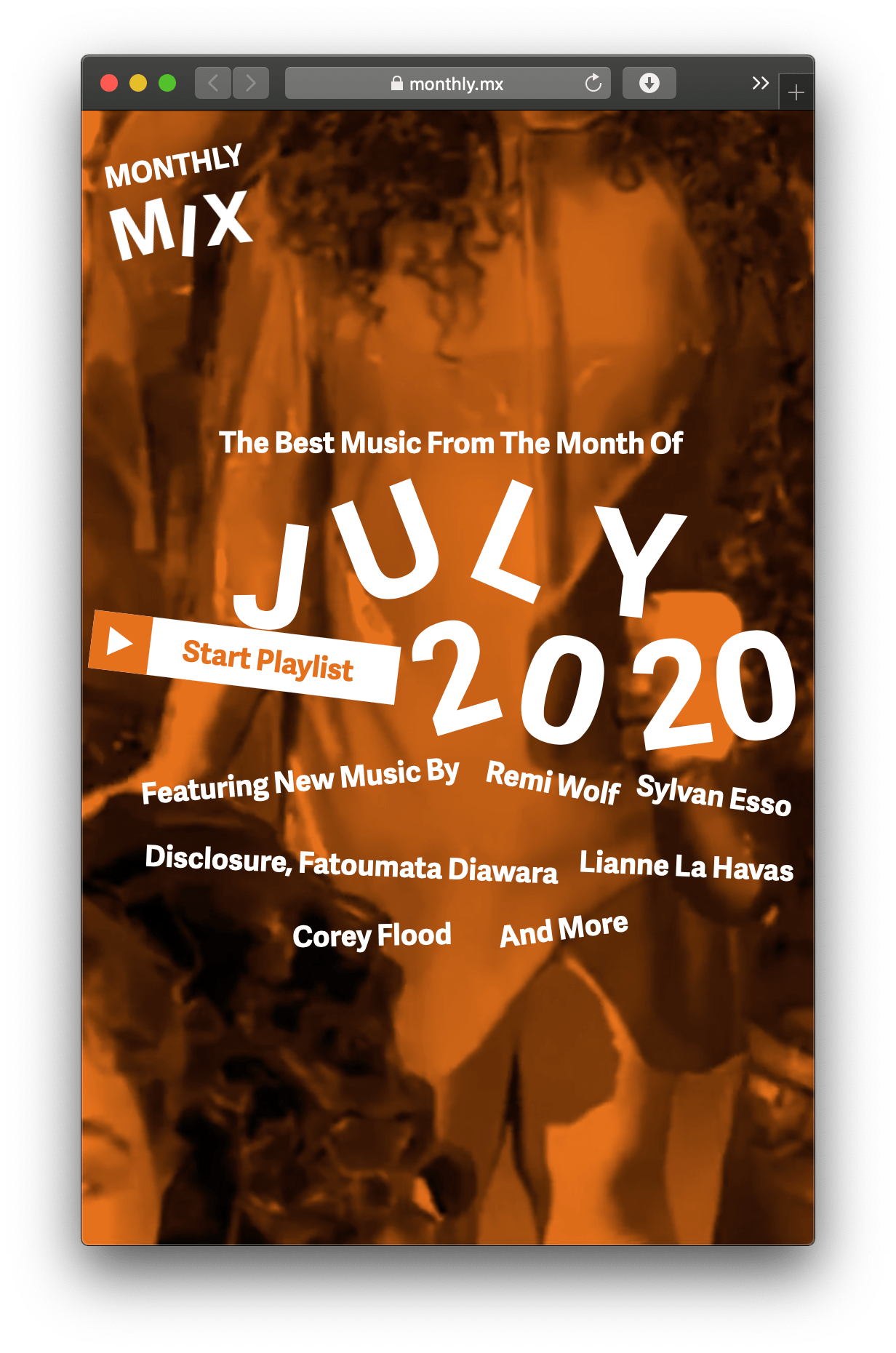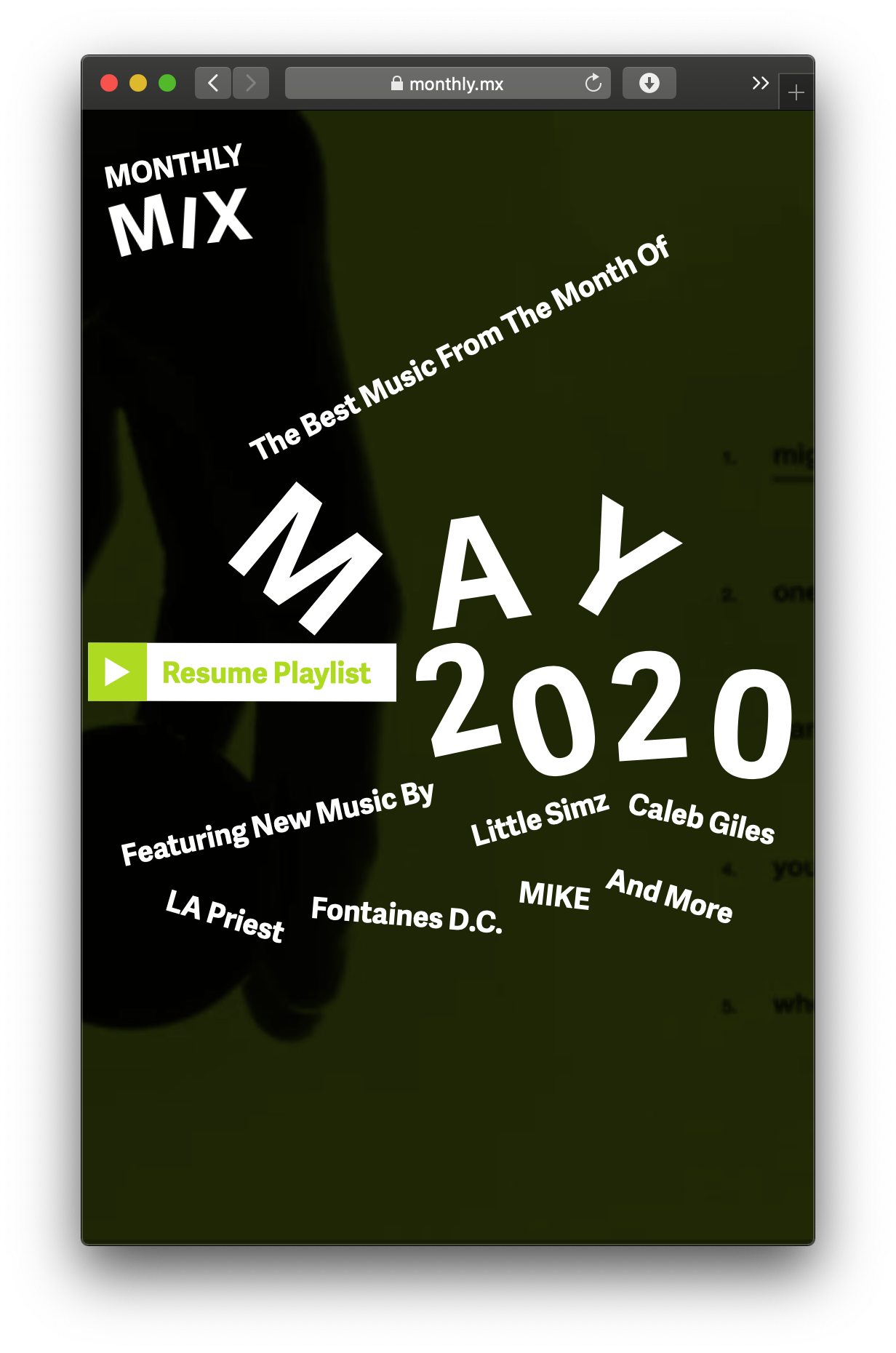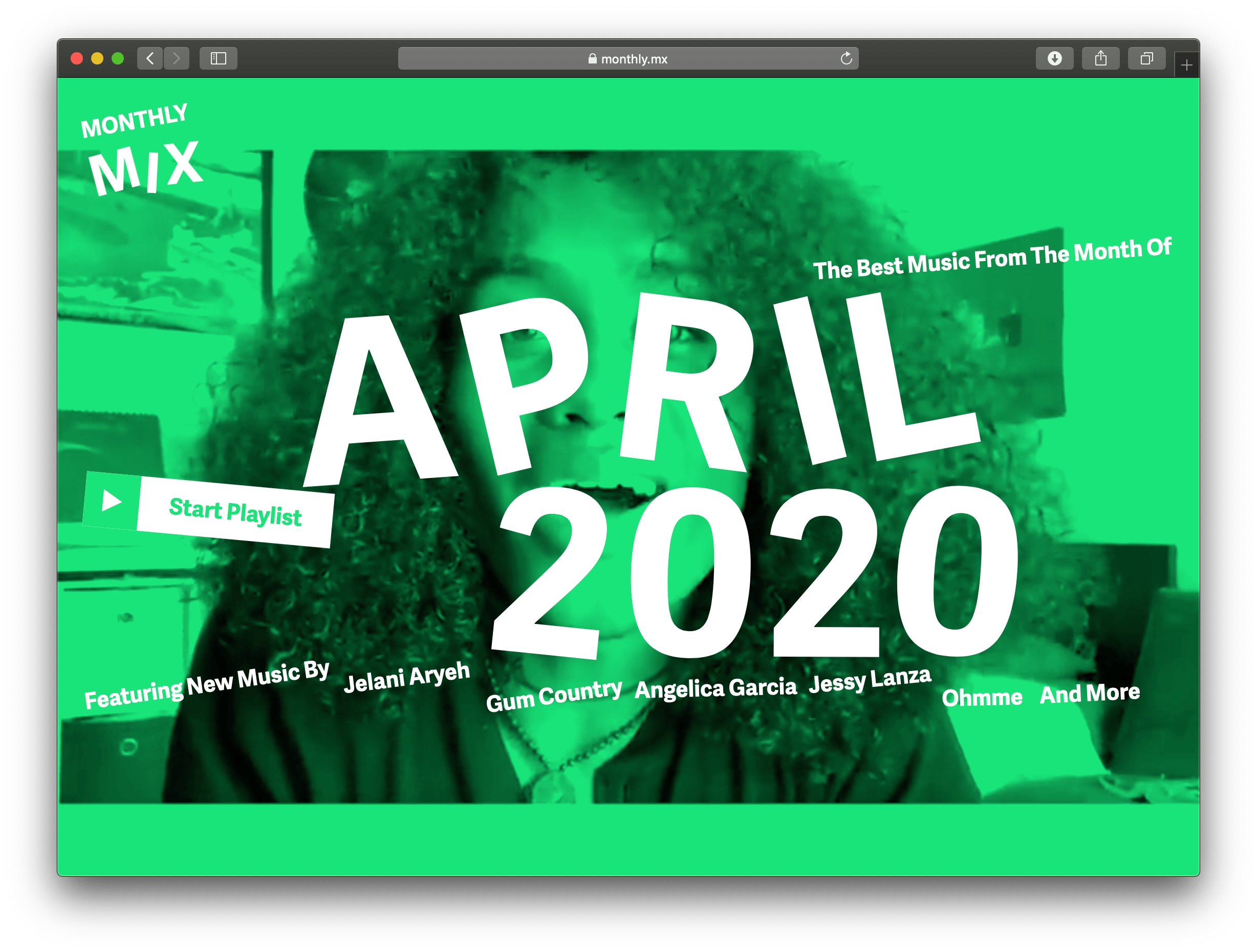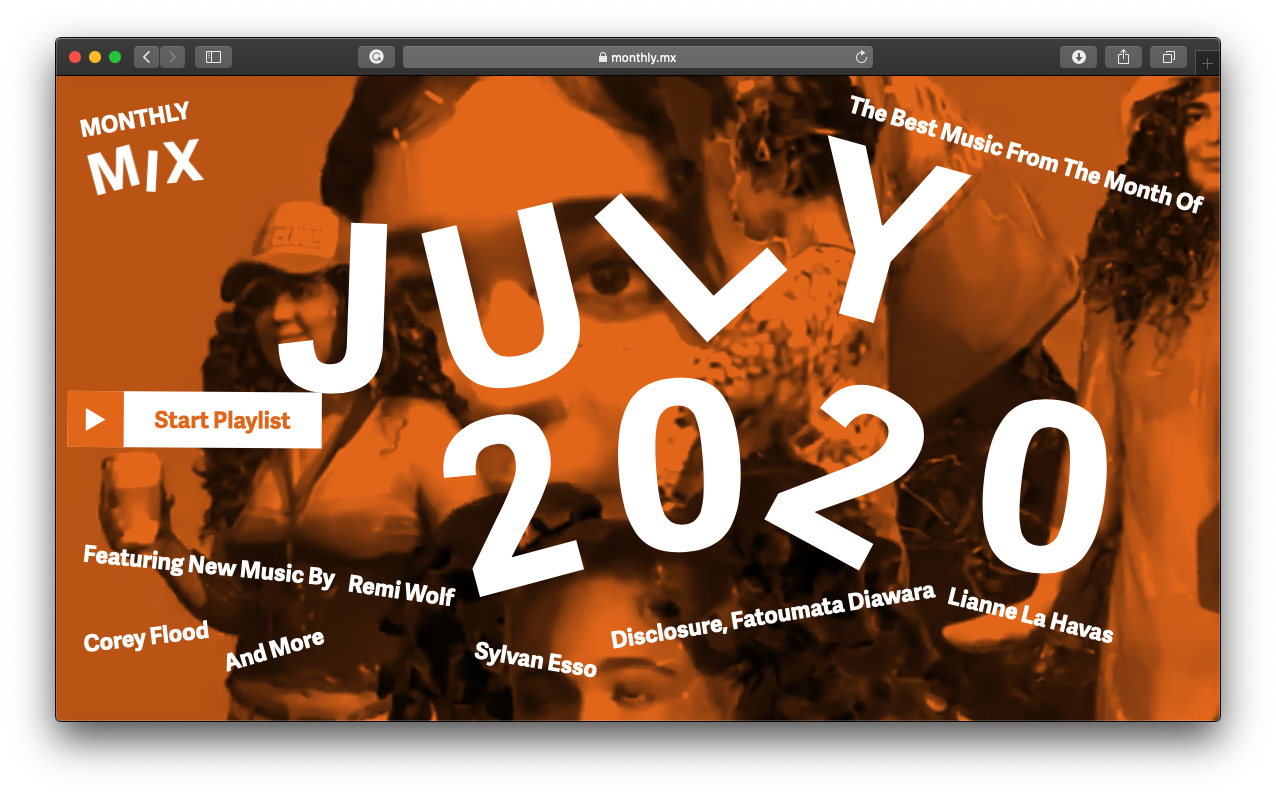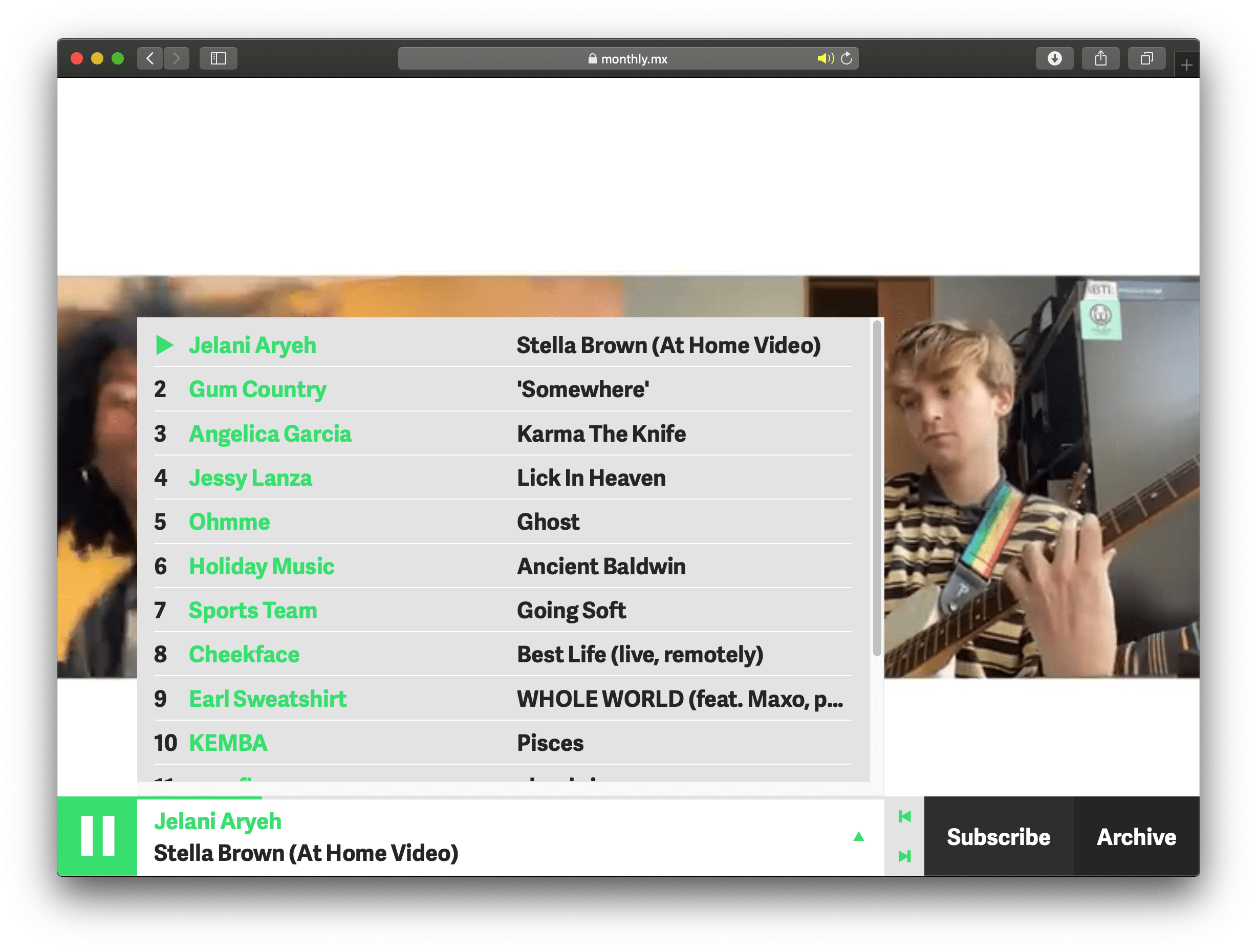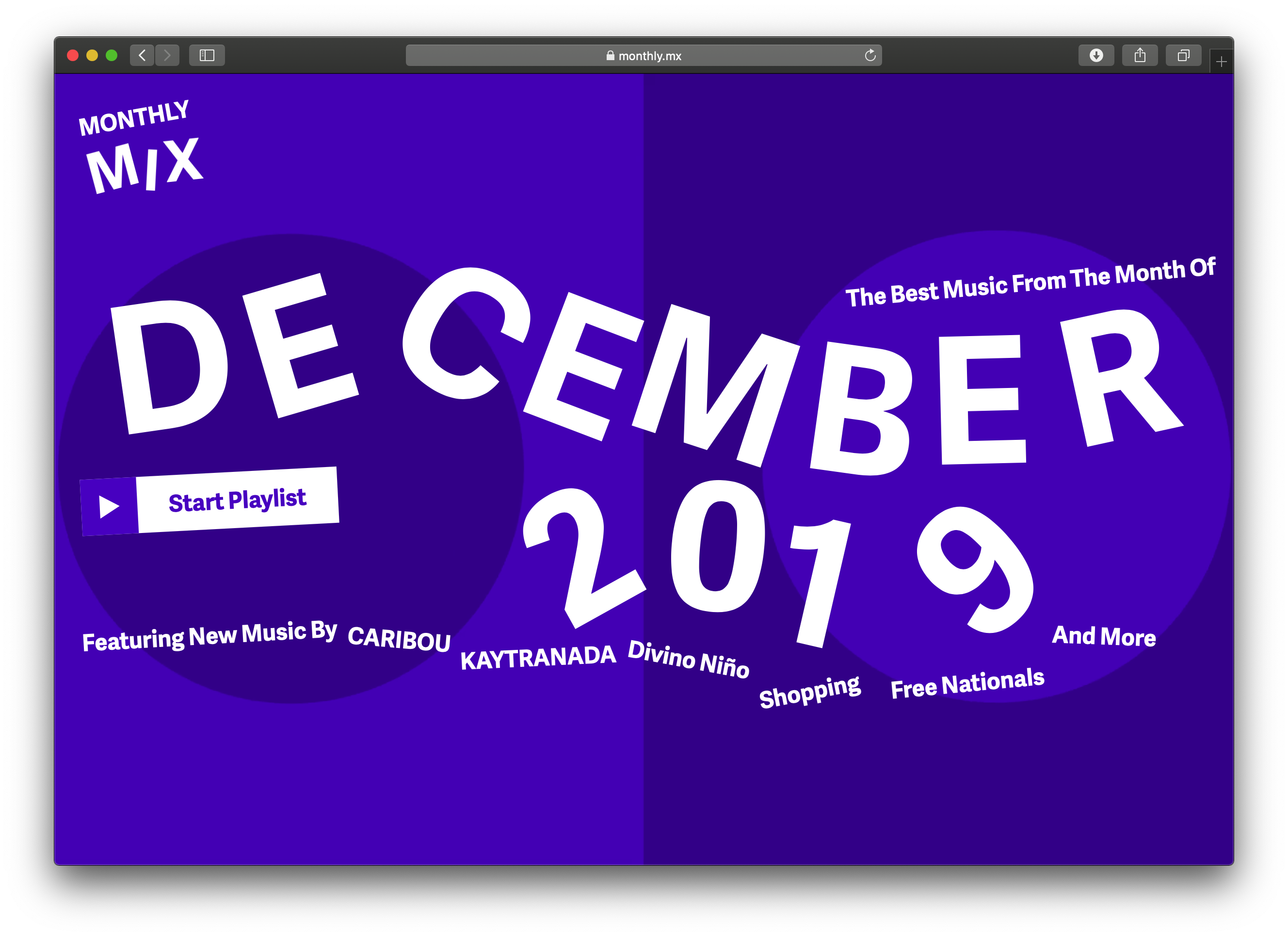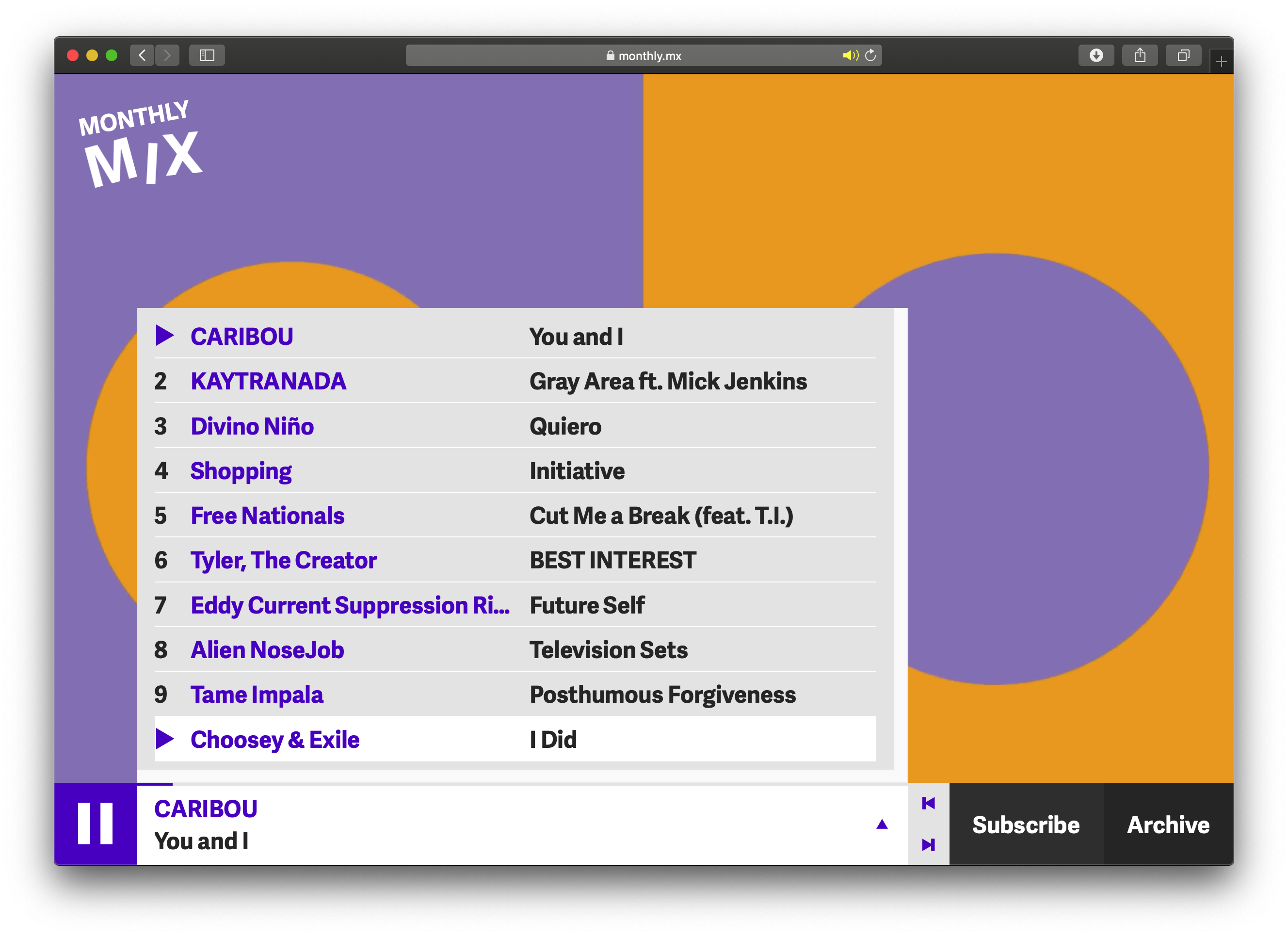
Monthly Mix
Adelle Sans in the music site Monthly Mix
Monthly Mix is a wide ranging music and video selection for the curious. While the music and videos take centre stage, Adelle Sans plays its part throughout the site in all text. Band names and song titles are clearly defined, and the large, playful display text harkens back to the indie and garage band vibe of decades past. Search through their archive and subscribe to be notified of the new list each month.